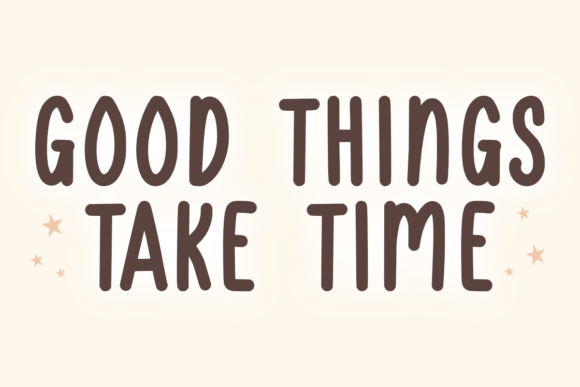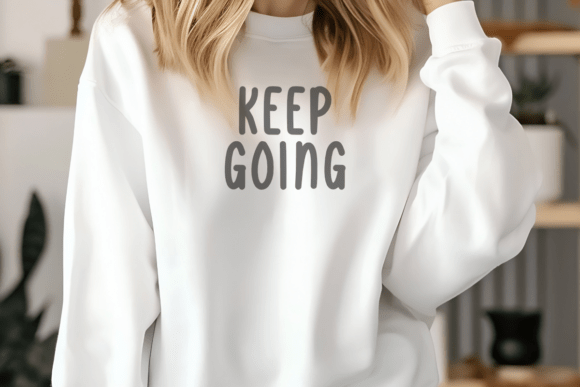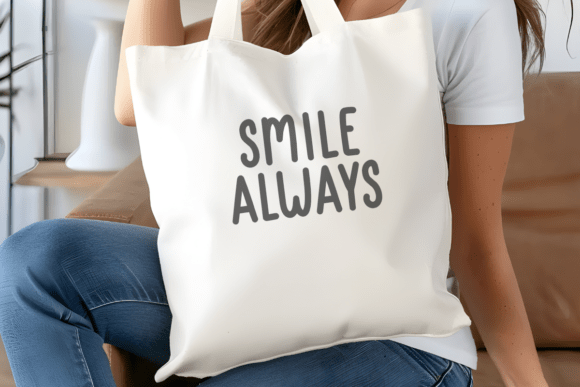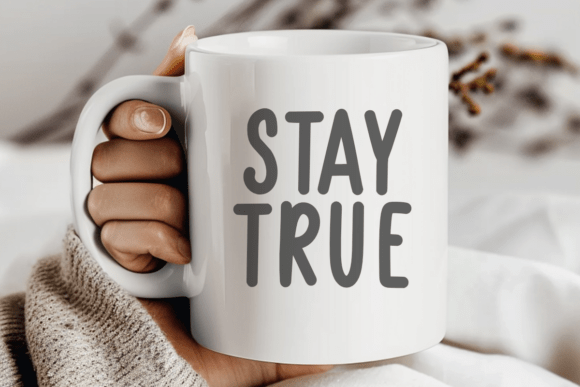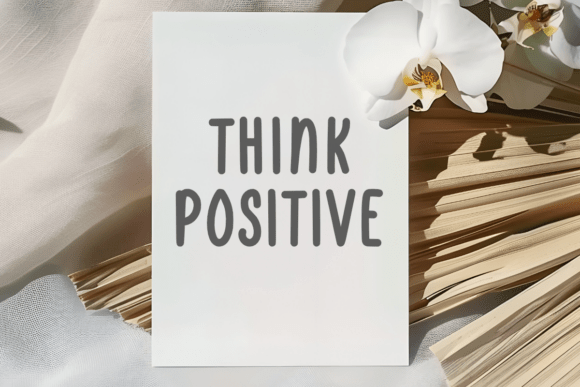
Introducing Avellin Font: The Perfect Handwriting Companion for Creative Moms
Are you a creative mom who loves DIY projects, journaling, and crafting with Cricut? Look no further! Avellin Font is here to revolutionize your creative endeavors with its cute and playful handwriting style. This versatile font is perfect for a wide range of applications, including planners, stickers, cards, quotes, and various craft projects.
What Makes Avellin Font So Special?
Avellin Font is a handwriting font that exudes a sense of playfulness and friendliness. Its unique and charming style makes it an excellent choice for creative moms who want to add a personal touch to their projects. Whether you’re creating a custom planner, designing stickers, or crafting handmade cards, Avellin Font is sure to bring a smile to your face and make your projects stand out.
Perfect for Planners and Journaling
Avellin Font is an excellent choice for planners and journaling enthusiasts. Its clear and legible handwriting style makes it easy to read and write, making it perfect for daily journaling, to-do lists, and goal setting. You can use Avellin Font to create custom planner pages, journal covers, or even inspirational quotes to motivate you throughout the day.
Ideal for Stickers and Cards
Avellin Font is also perfect for creating stickers and cards for special occasions. Its playful style makes it an excellent choice for kids’ birthday parties, holidays, or just because. You can use Avellin Font to create custom stickers, greeting cards, or even handmade gift tags that will make your gifts stand out.
Cricut Crafts and DIY Projects
Avellin Font is compatible with Cricut machines, making it an excellent choice for crafters who love working with vinyl, iron-on, or paper. You can use Avellin Font to create custom signs, wall art, or even decorative items for your home. The possibilities are endless, and Avellin Font is sure to become your go-to font for all your Cricut crafts and DIY projects.
Why Creative Moms Love Avellin Font
Creative moms love Avellin Font for its versatility, playfulness, and ease of use. Here are just a few reasons why:
- Easy to read and write: Avellin Font is clear and legible, making it easy to read and write, even for those with messy handwriting.
- Perfect for kids and adults: Avellin Font is a font that appeals to both kids and adults, making it perfect for family projects or activities.
- Compatible with various craft supplies: Avellin Font can be used with a variety of craft supplies, including paper, vinyl, iron-on, and more.
- Adds a personal touch: Avellin Font adds a personal touch to your projects, making them unique and special.
Tips and Tricks for Using Avellin Font
Here are some tips and tricks for getting the most out of Avellin Font:
- Experiment with different colors: Avellin Font looks great in a variety of colors, so don’t be afraid to experiment and find the perfect color for your project.
- Mix and match with other fonts: Avellin Font pairs well with other fonts, so feel free to mix and match to create a unique look.
- Use it for titles and headings: Avellin Font is perfect for titles and headings, adding a touch of playfulness to your projects.
- Create custom graphics: Avellin Font can be used to create custom graphics, such as logos, icons, or illustrations.
Avellin Font is a versatile and playful handwriting font that’s perfect for creative moms who love DIY projects, journaling, and Cricut crafts. Its unique style and ease of use make it an excellent choice for a wide range of applications, from planners and stickers to cards and craft projects. Whether you’re a seasoned crafter or just starting out, Avellin Font is sure to become your go-to font for all your creative endeavors.